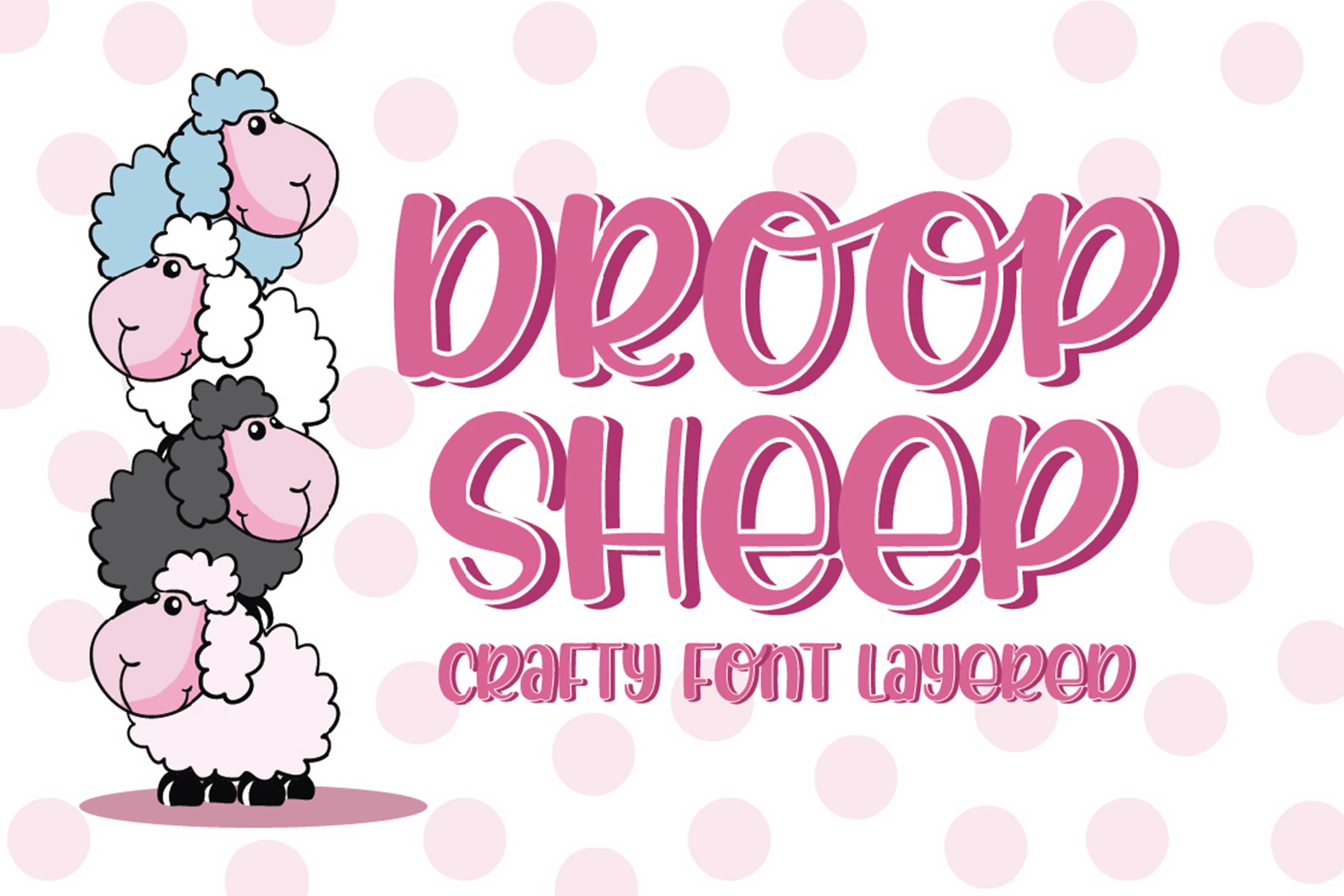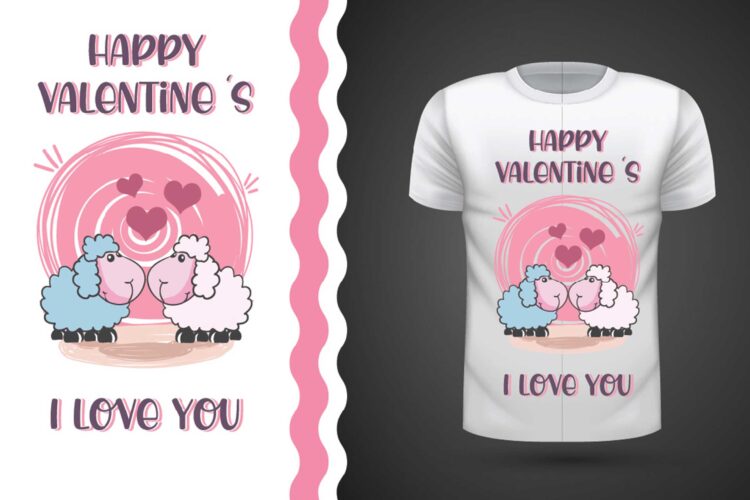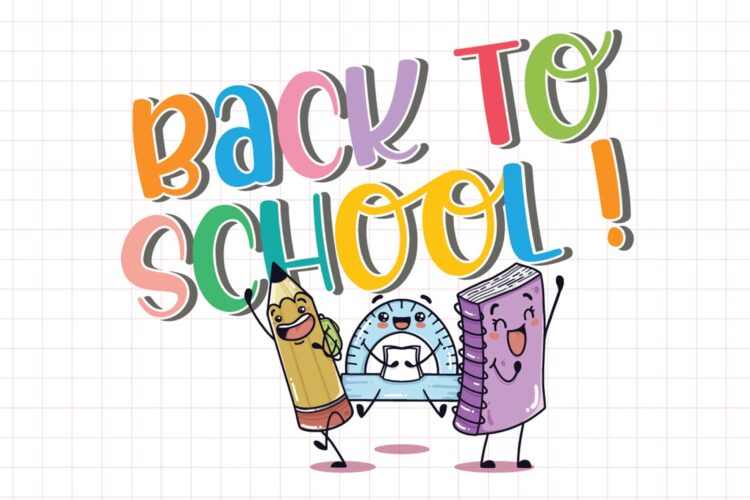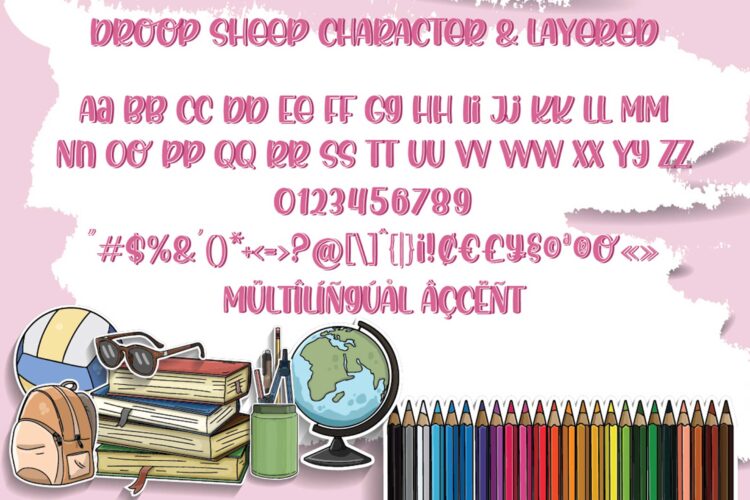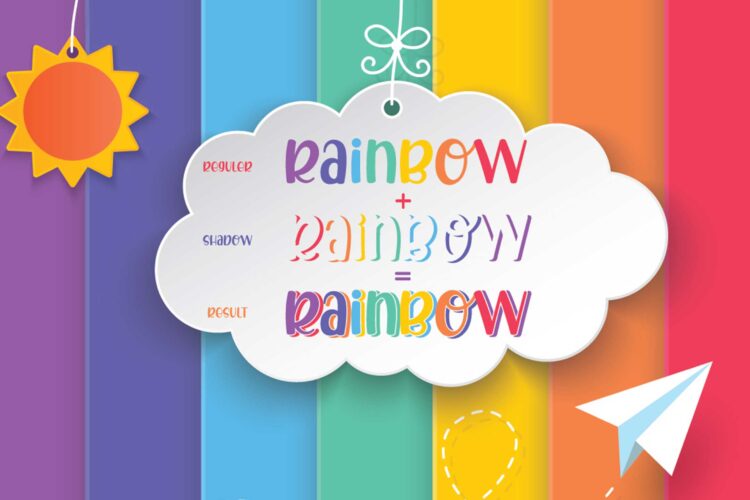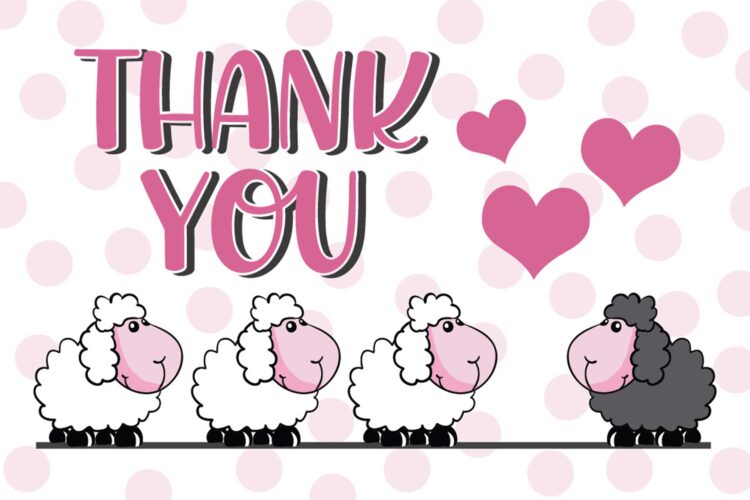
Introducing of our new product the name is Droop Sheep – Crafty font layered. Droop Sheep good for kids theme, Crafted, logotype, label, badge, headline, packaging and any more.
– Standard Character Set, including Uppercase, lowercase, numeric and symbols
– Multilingual Support
– Comes in two version, Regular and Shadow
Droop Sheep - Crafty Layered Font